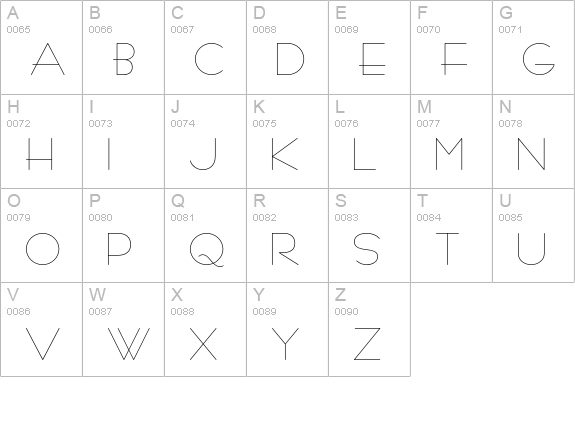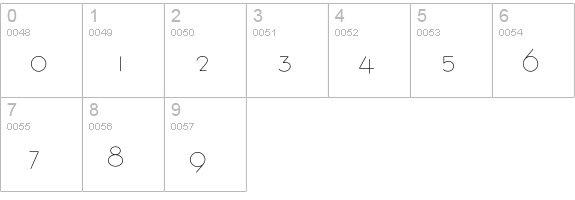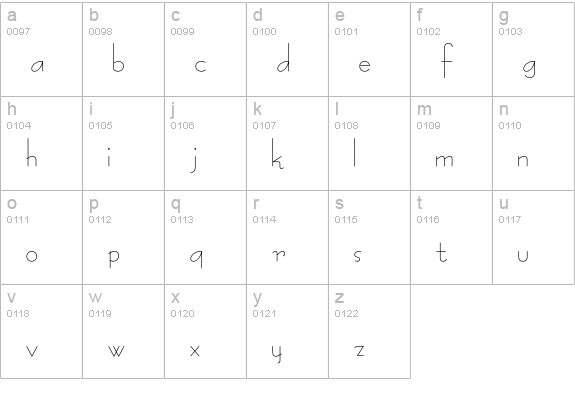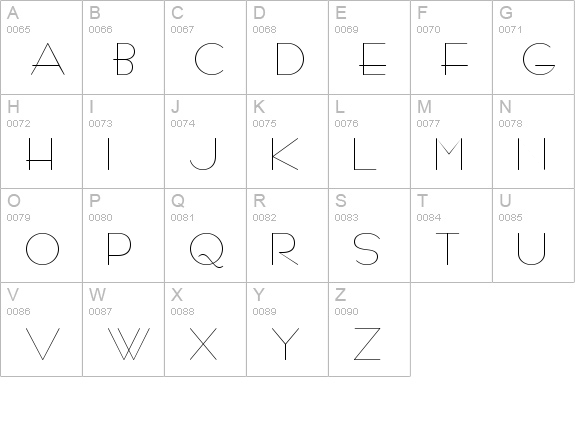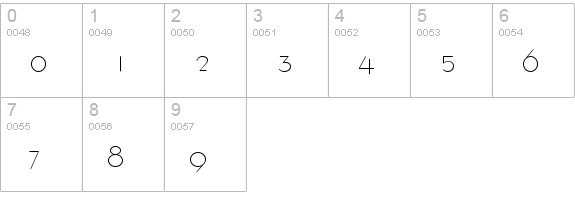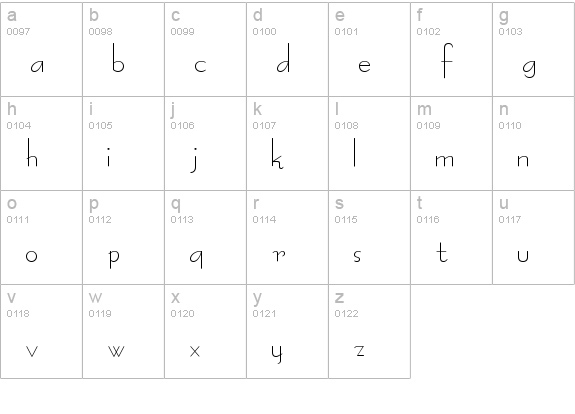
BernhardFashionICG Font Details
BernhardFashionICG is a stylish and elegant font that exudes sophistication and charm. Its sleek lines and graceful curves make it perfect for adding a touch of class to any design project. This versatile font is suitable for a wide range of applications, from branding and advertising to invitations and packaging. The best part? BernhardFashionICG is available for free download at FontsMarket.com. This means you can easily access and use this beautiful font in your projects without any cost. Whether you're a professional designer or just looking to spruce up your personal projects, BernhardFashionICG is sure to impress with its timeless appeal and effortless style. Download it today and elevate your designs with this stunning typeface.